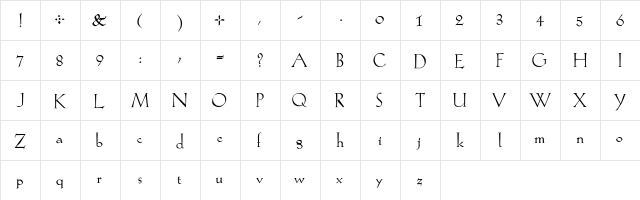
BELLESTAR Regular Font Preview
BELLESTAR Regular
BELLESTAR Regular Font Details
Design Context for BELLESTAR Typeface
BELLESTAR offers clean, dependable letterforms without strong stylistic allegiance, making it a practical choice for designers who need flexibility.